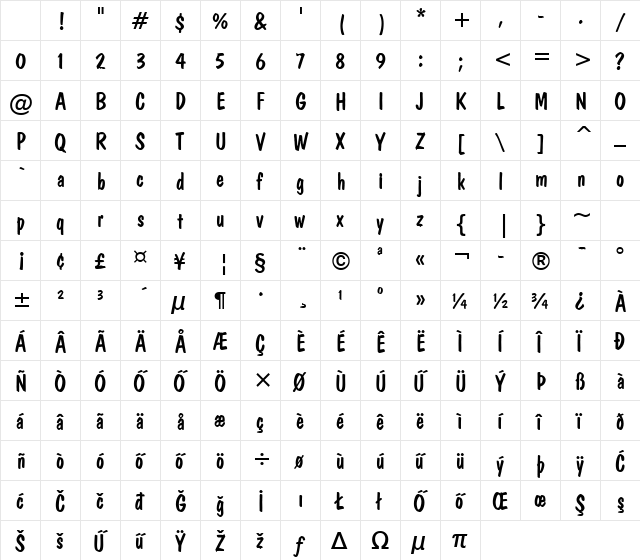
Complete Huni_Domp Regular glyph index. Displaying only characters natively supported by Huni_Domp Regular font.
Huni_Domp is a composed and adaptable typeface that performs quietly and consistently across a wide range of design contexts.